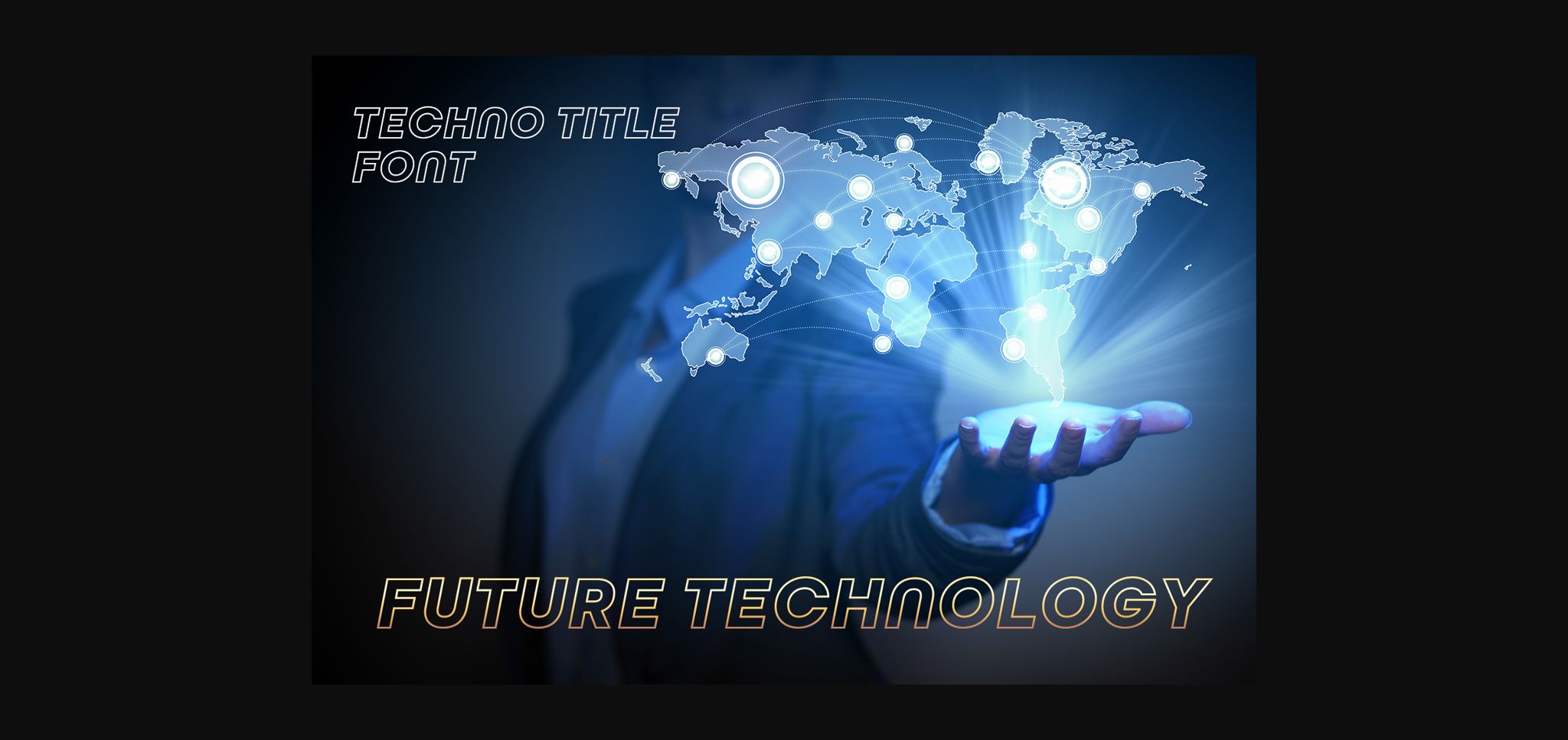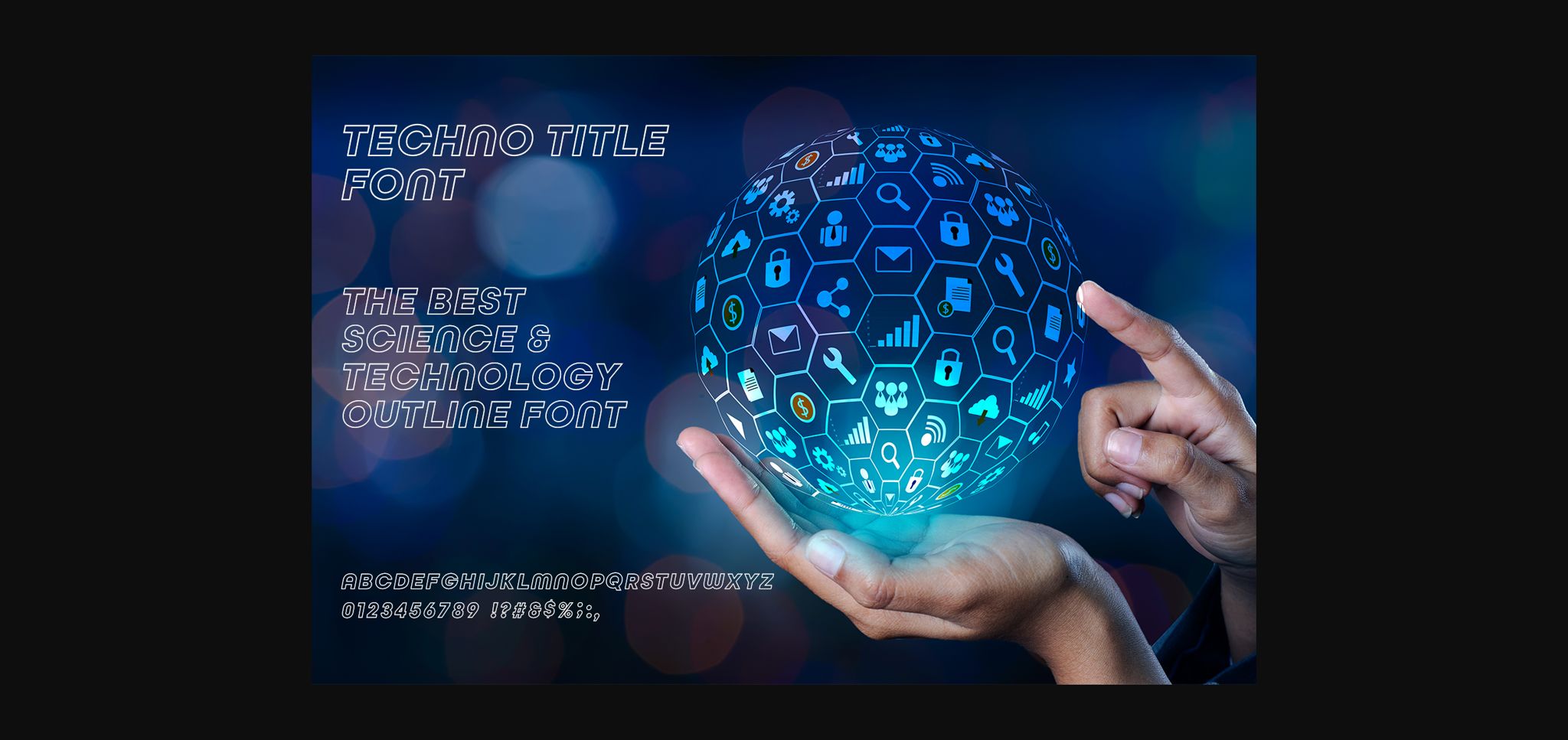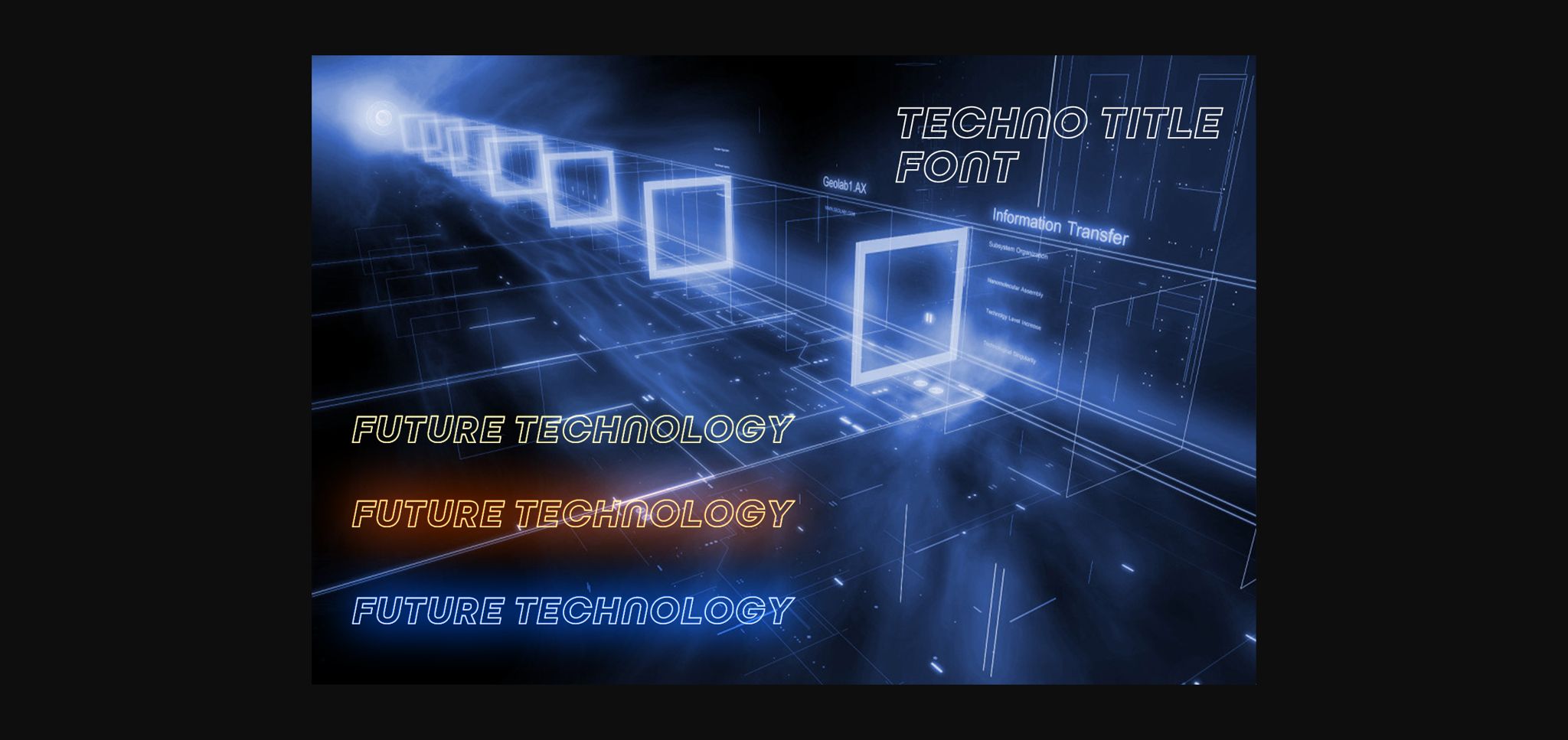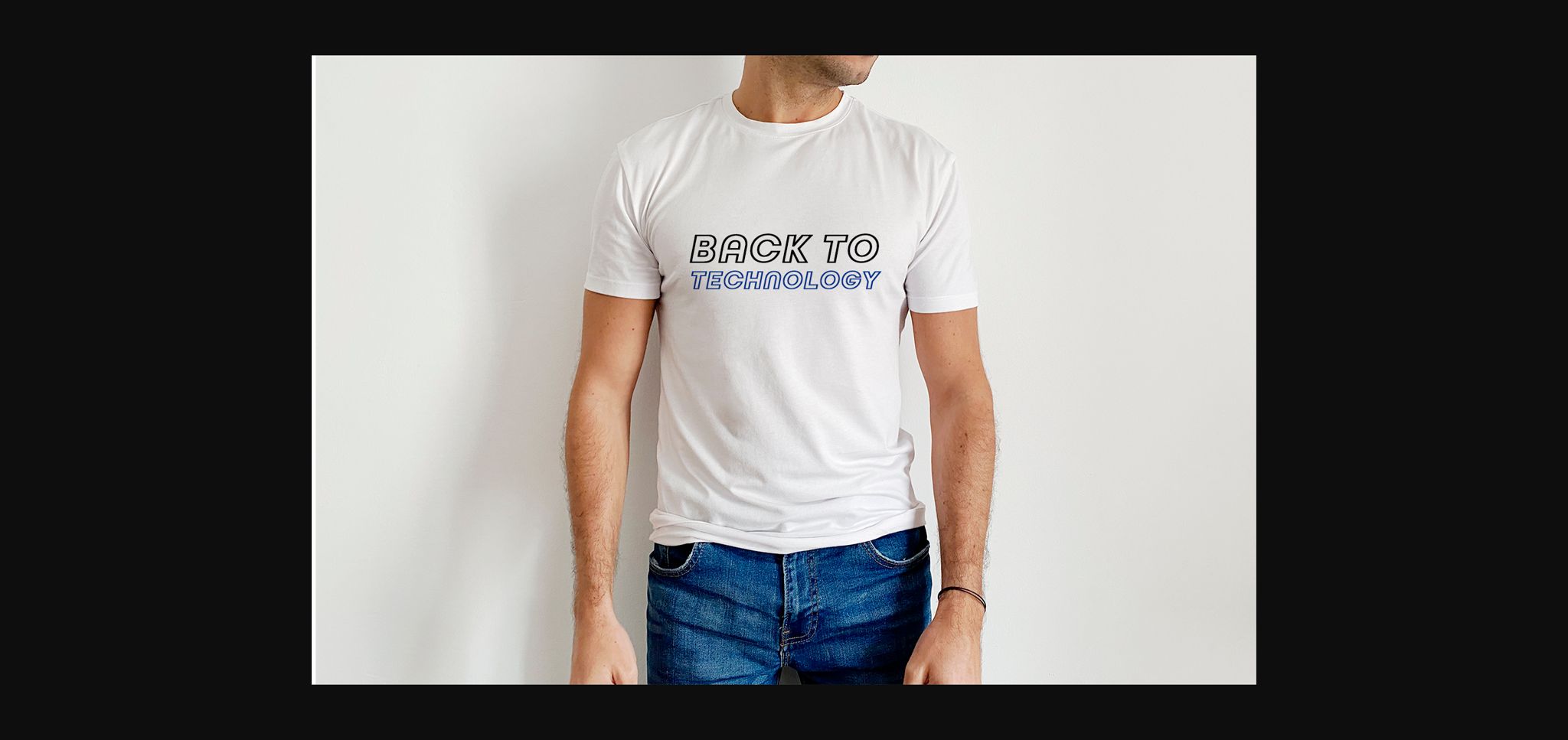
About Techno Title Font
Techno Title is a modern sans serif font, carefully handcrafted to become a true favorite. Its casual charm makes it appear wonderfully down-to-earth, readable and, ultimately, incredibly versatile. This font will look outstanding in any context, whether it’s being used on busy backgrounds or as a standalone headline!